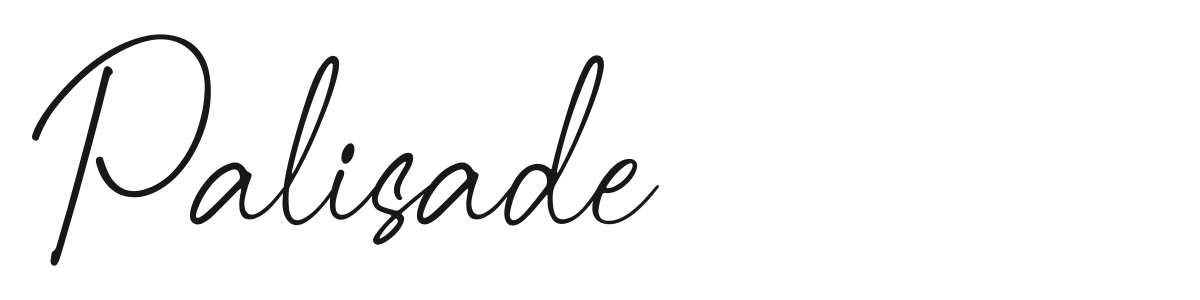
Palisade
Palisade is a flowing casual script with thin, connecting strokes and a naturally relaxed handwritten rhythm. Long looping ascenders and descenders give it an elegant lift without tipping into formal calligraphy. It also features a swash system that lets designers build custom flourished characters directly from the keyboard.